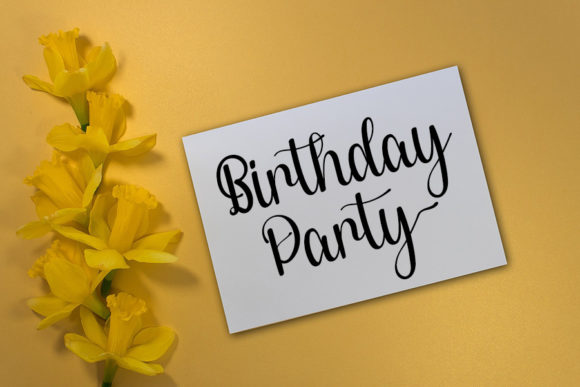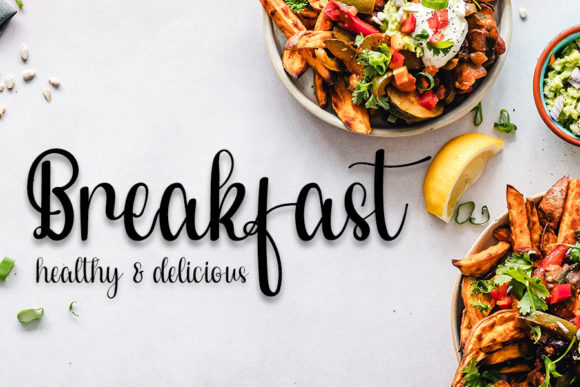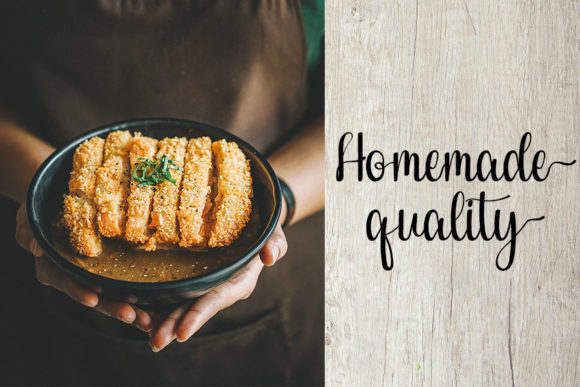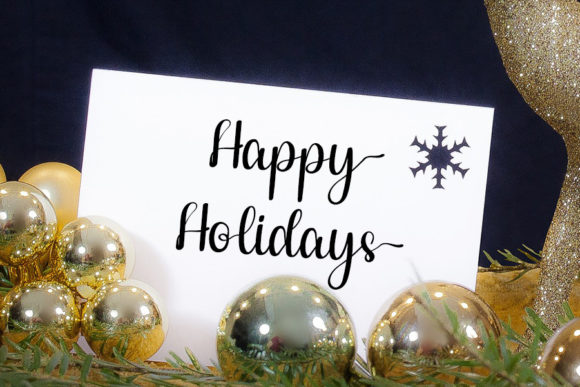
About Seamless Font
“Seamless” is a font that embodies a friendly and inviting character, thoughtfully created to quickly become a beloved choice. It retains the sophistication of calligraphic influences while embracing a modern and fresh feel.
The font’s friendly demeanor shines through in its handwritten design, conveying a sense of approachability and warmth. It’s an excellent option for projects that aim to establish a connection with the audience.
Despite its contemporary and fresh essence, “Seamless” pays homage to classic calligraphy, resulting in a unique fusion of influences. This blending of styles appeals to both modern design sensibilities and timeless elegance.
An additional advantage of “Seamless” is its versatility, making it well-suited for various contexts. Whether it’s for branding, marketing materials, social media graphics, or any creative endeavor, the font adapts seamlessly while retaining its approachable charm.
In summary, “Seamless” effortlessly bridges the gap between classic and contemporary. Its friendly nature, combined with its calligraphic influences, positions it as a versatile asset for designers aiming to infuse approachability and sophistication into their projects. Whether you’re working on branding, marketing, or any creative venture, “Seamless” is poised to captivate and make a lasting impact.